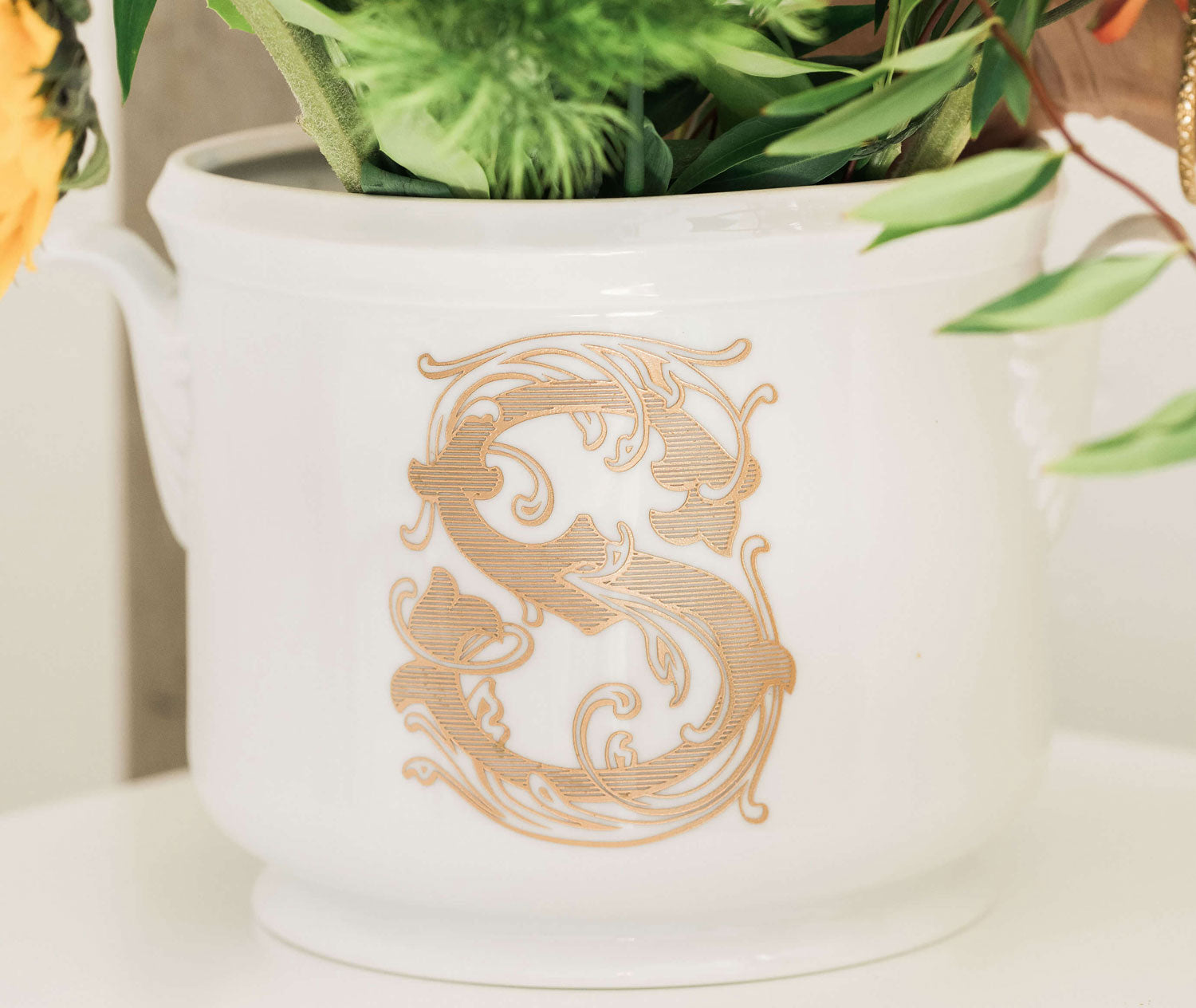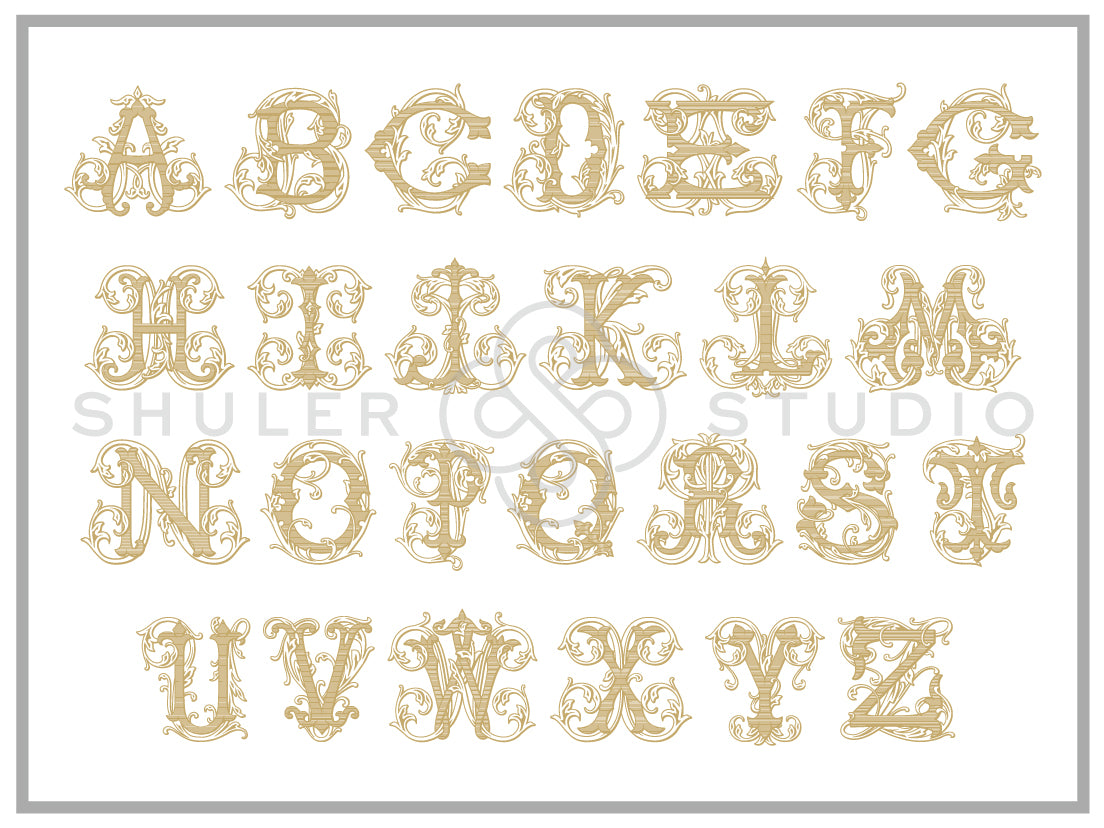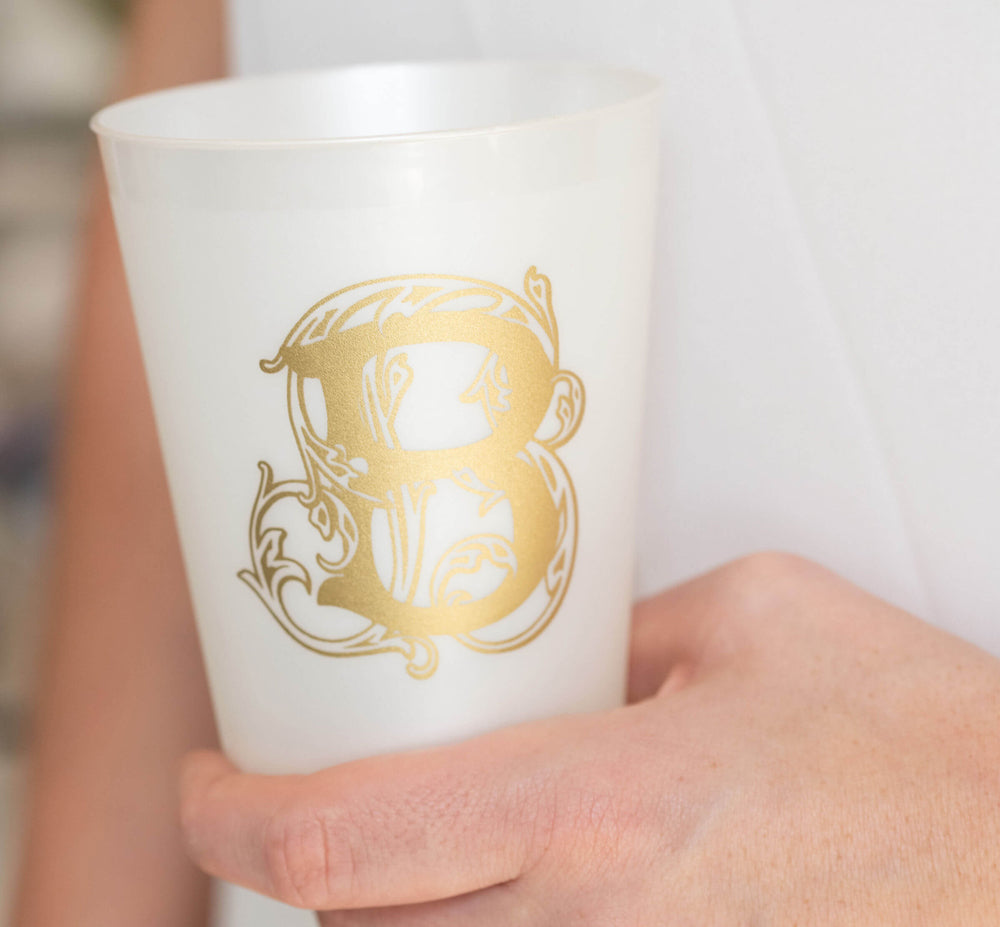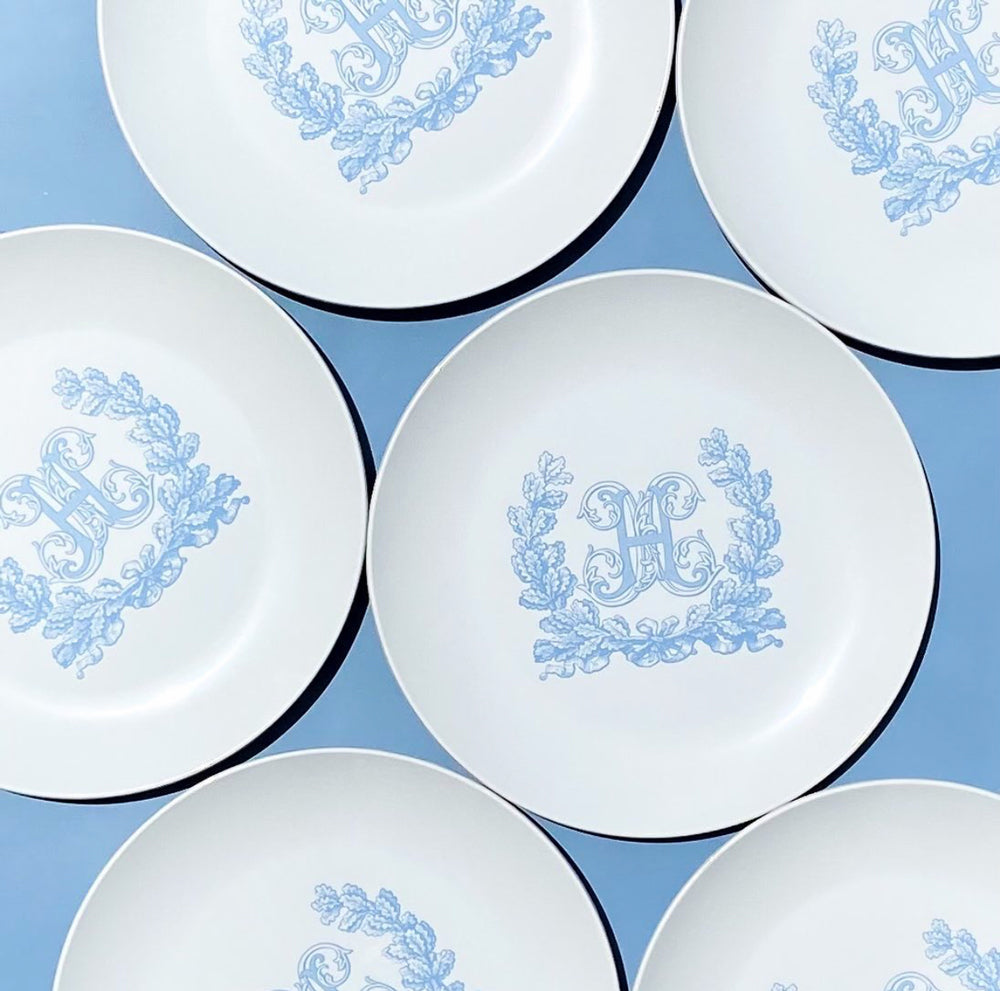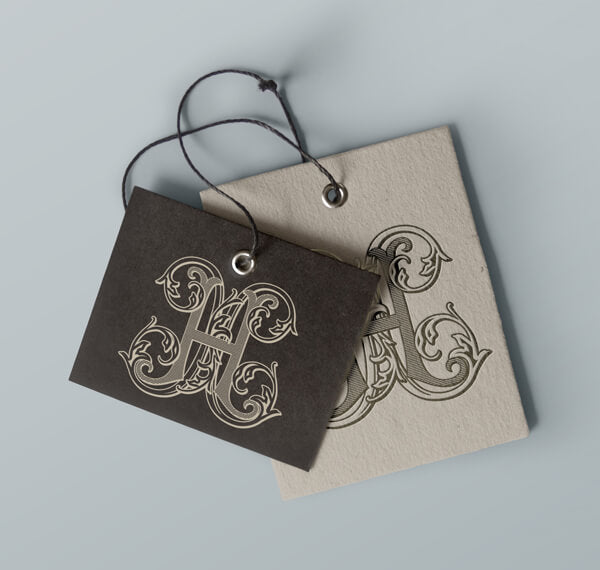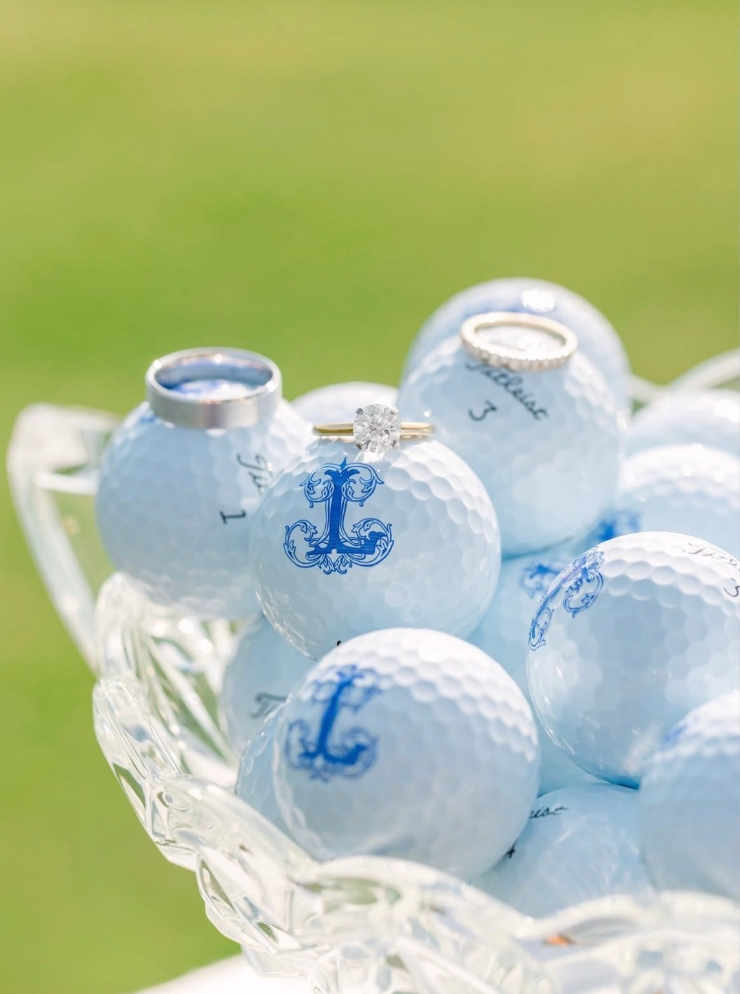
Vintage Vine Font for Print
Our Vintage Vine Font is an amazing collection of 26 single vintage letters woven with each letter’s vine counterpart. Beautiful elements and detail make this the perfect font for distinctive personalization.